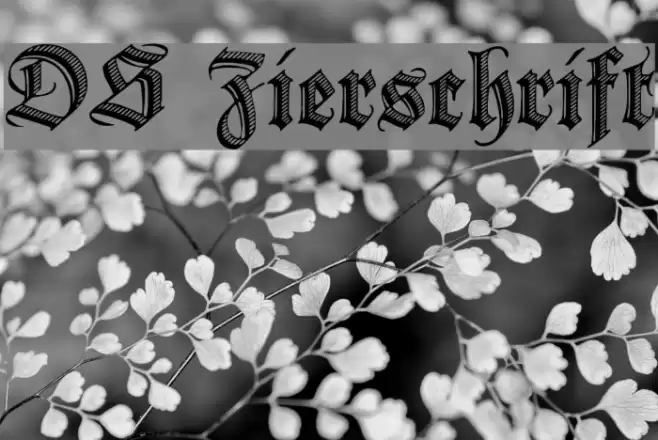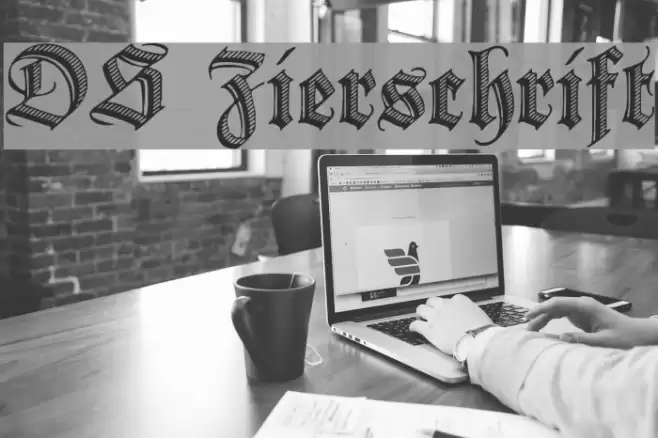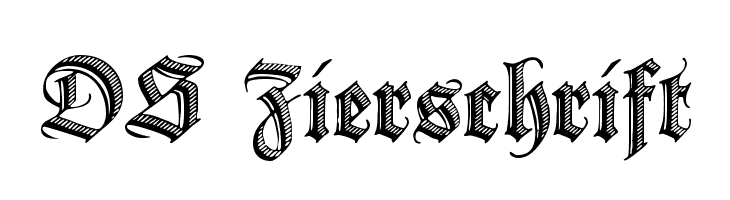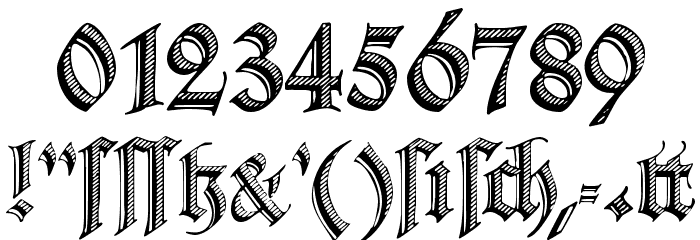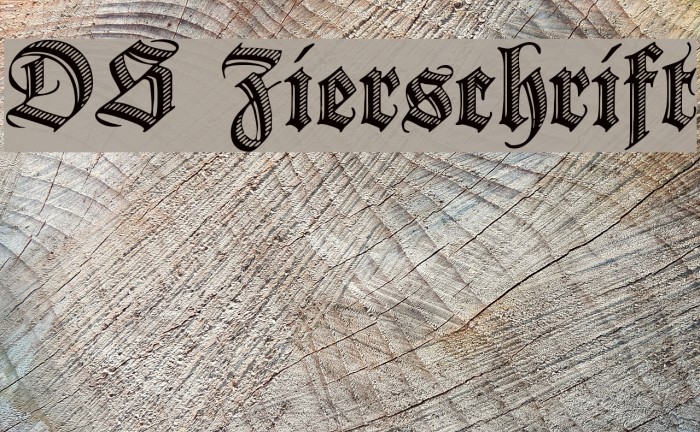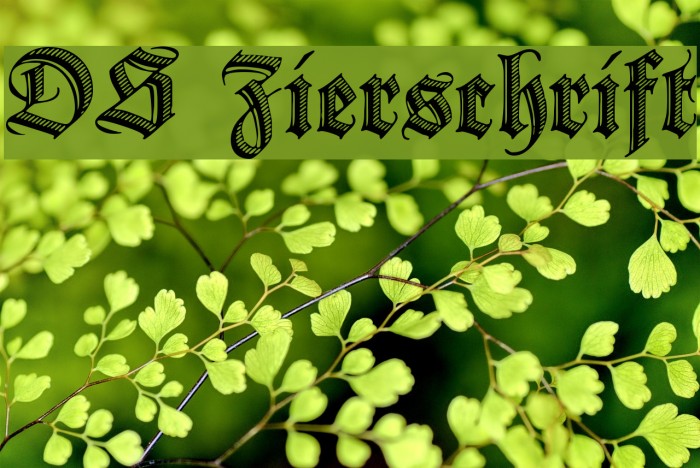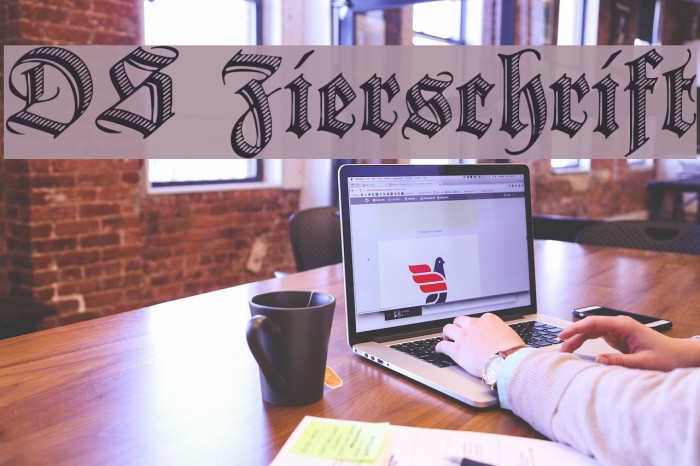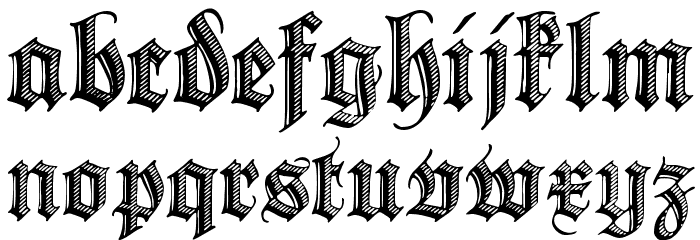
DS Zierschrift Font
DS Zierschrift Description
This font exudes a classic and ornate style, reminiscent of traditional blackletter typefaces. The characters are intricately designed with sharp, angular edges and elaborate flourishes, giving them a distinct medieval appearance. The uppercase letters are bold and commanding, while the lowercase letters maintain a consistent style with slightly more subtle detailing. Numbers and special characters follow the same ornate design, ensuring a cohesive look across all glyphs. The font's decorative nature makes it ideal for projects that require a historical or gothic aesthetic.
An ornate, blackletter-style font with intricate detailing and a medieval flair from Uncategorized fonts.
- Proposed Projects: Ideal for historical documents, gothic-themed designs, book covers, and decorative signage.
- Overall Style: Vintage
- Use Case: Logos, Headlines, Decorative text